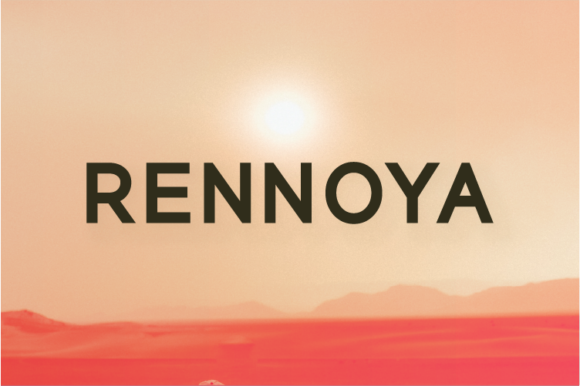
Rennoya
About Rennoya Font
Rennoya is a minimal and neat sans serif font. It can effortlessly be matched to an incredibly large set of projects, so add it to your creative ideas and notice how it makes them stand out!